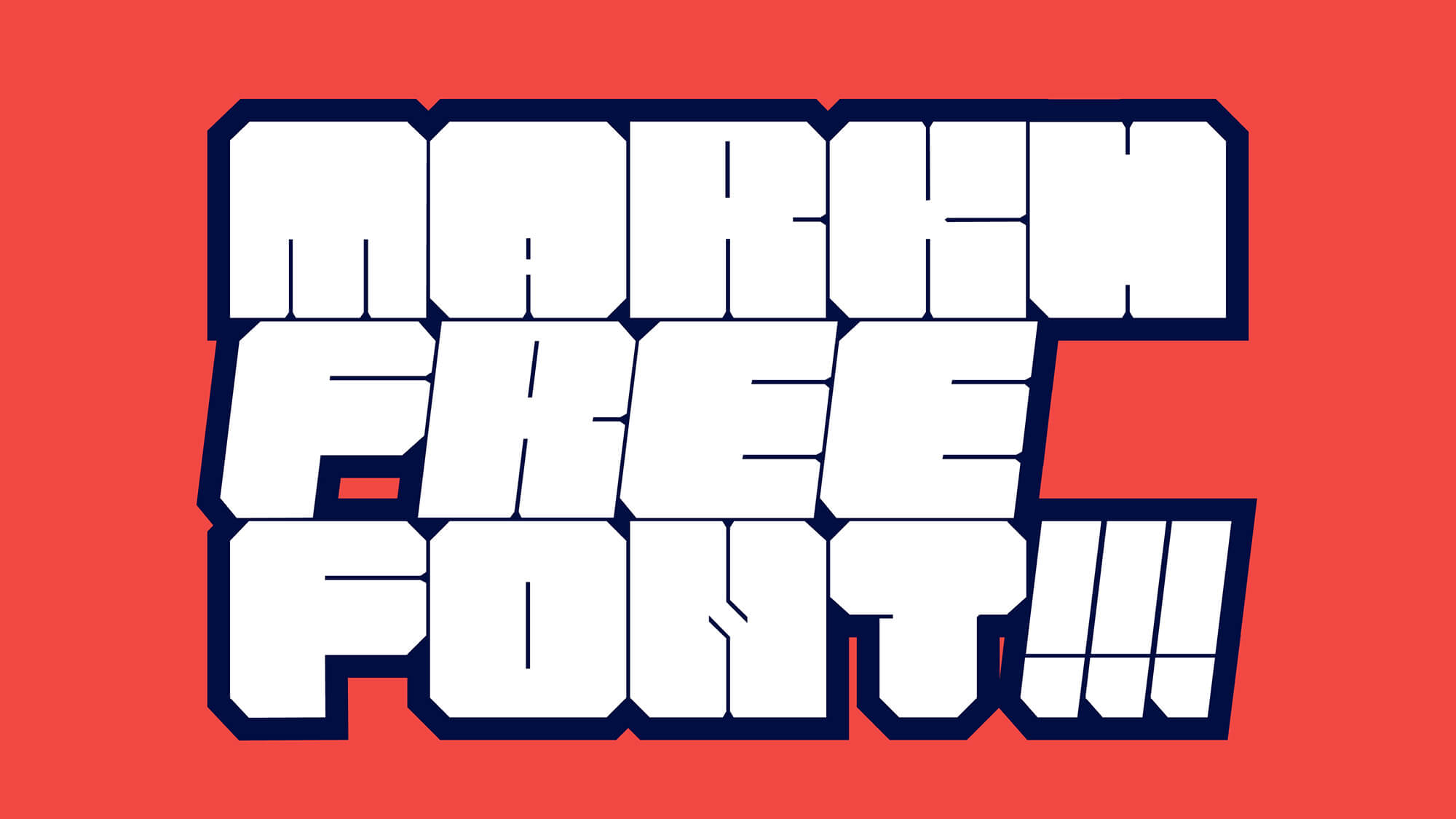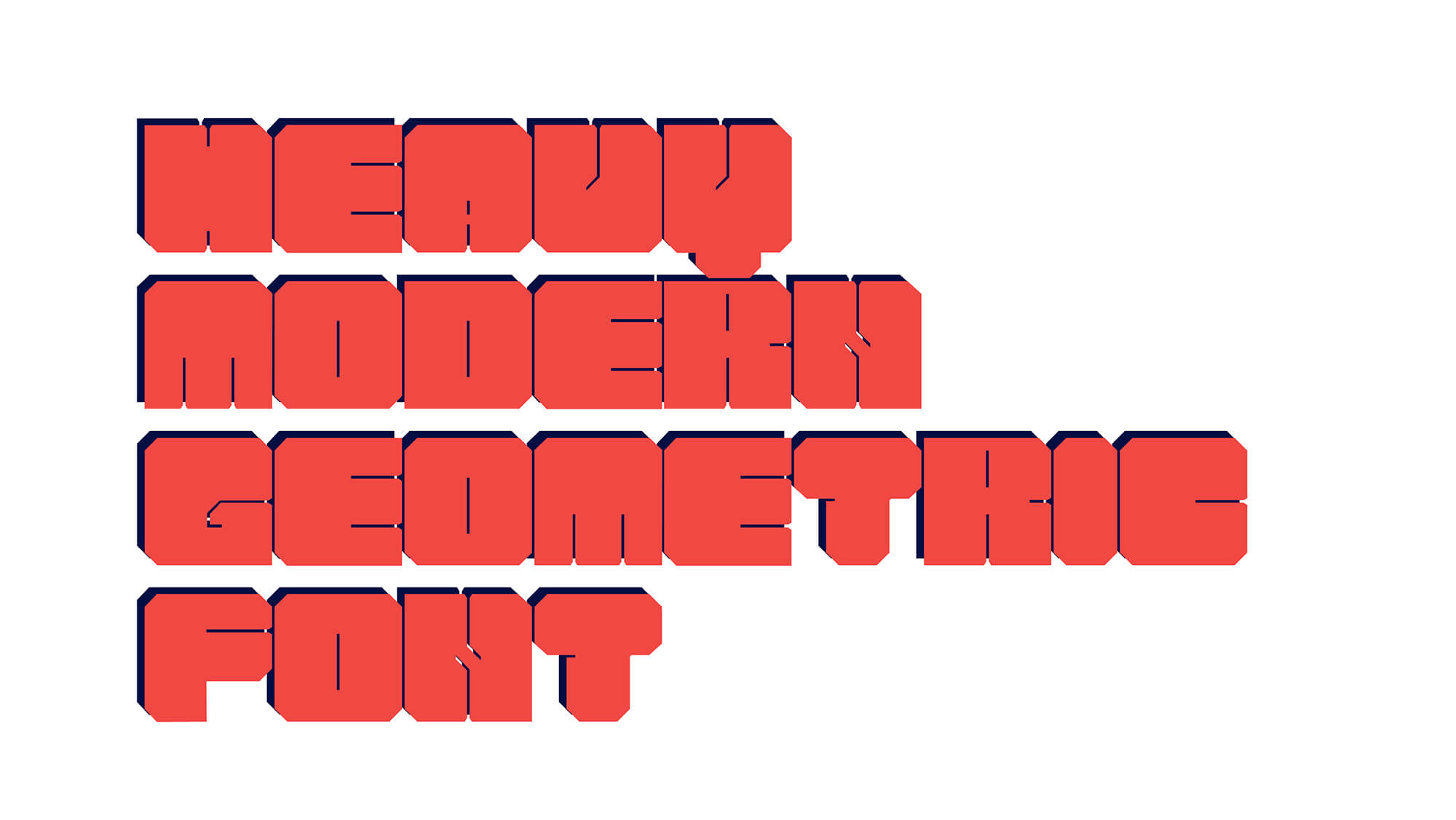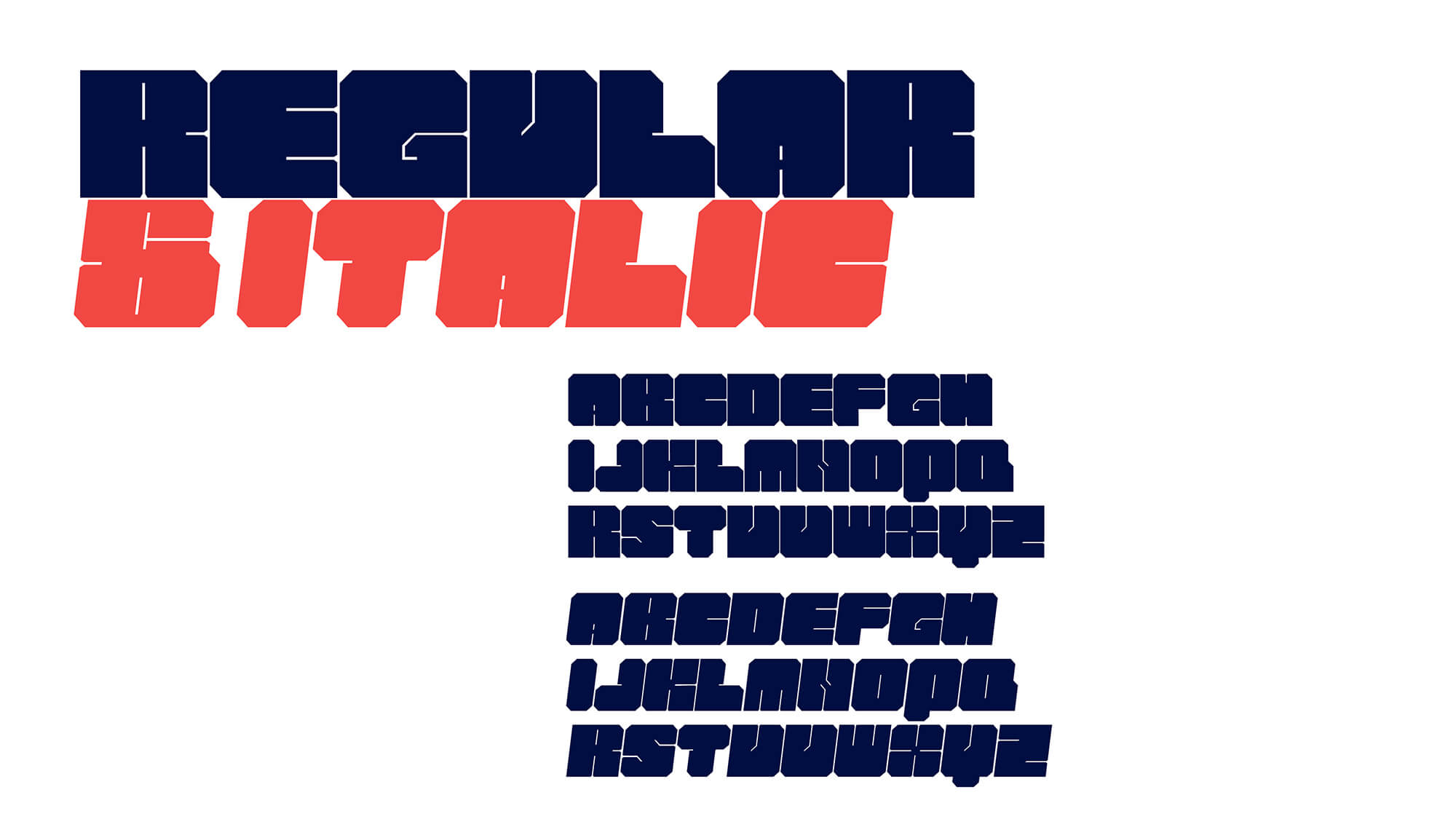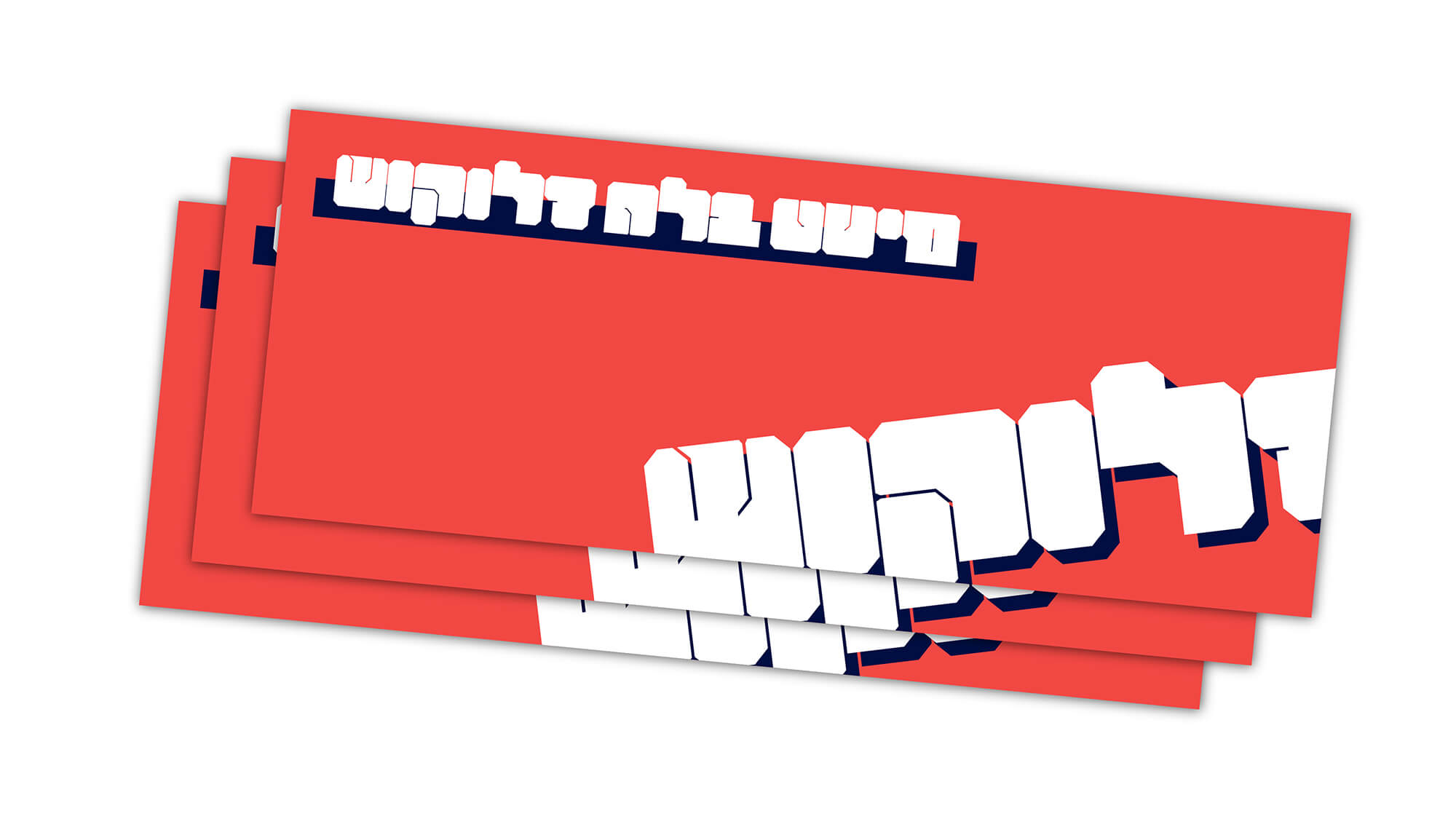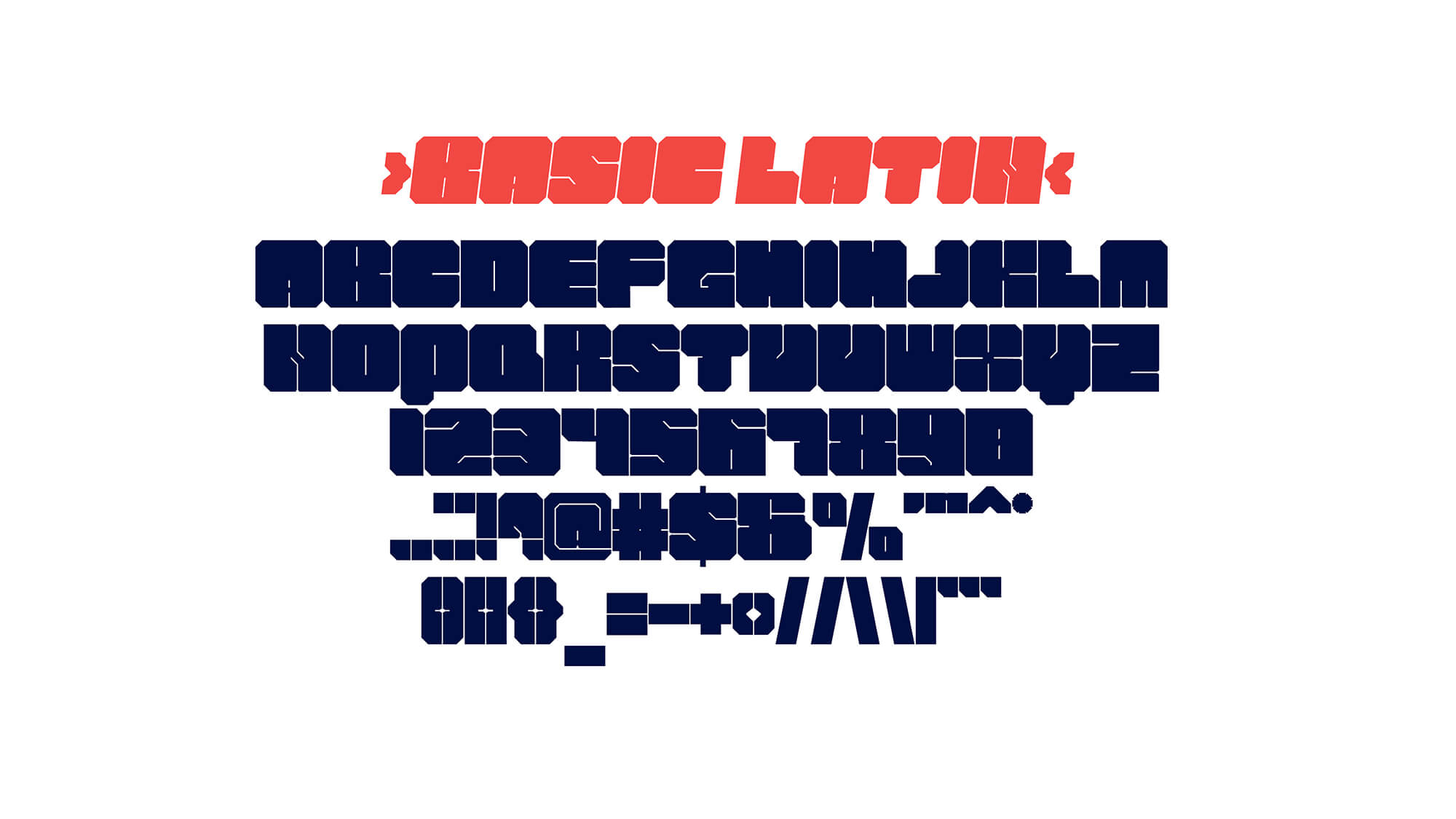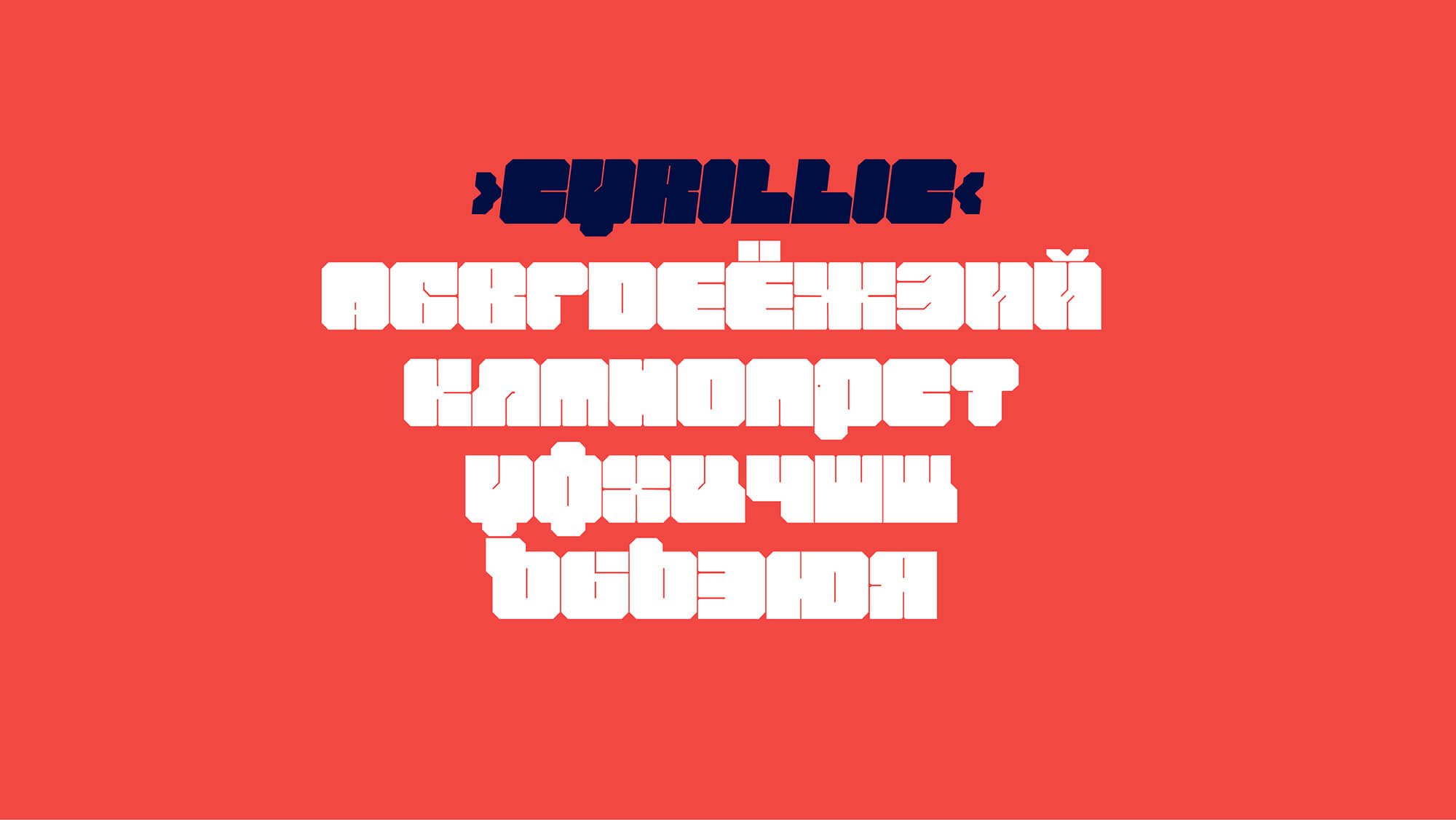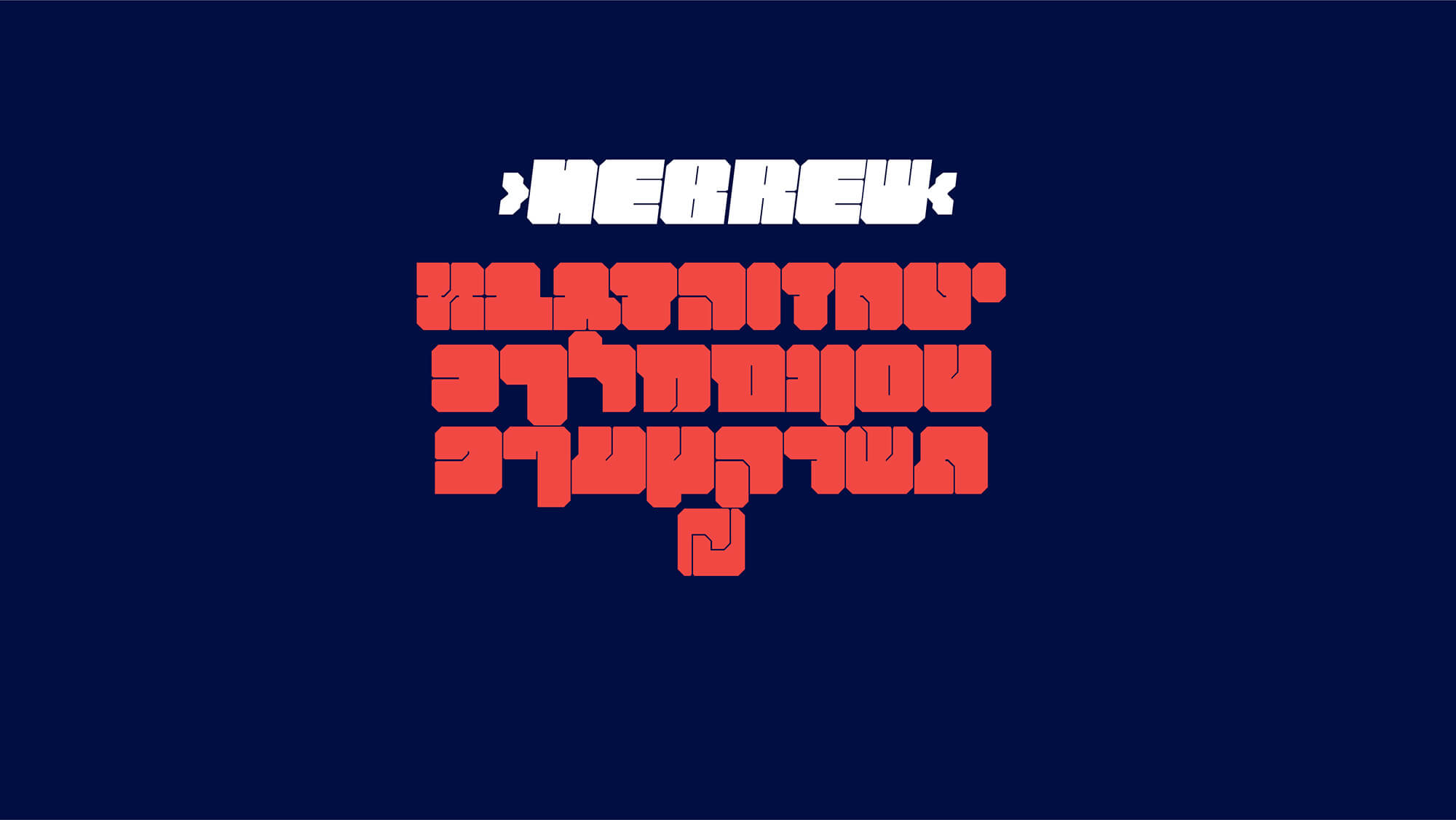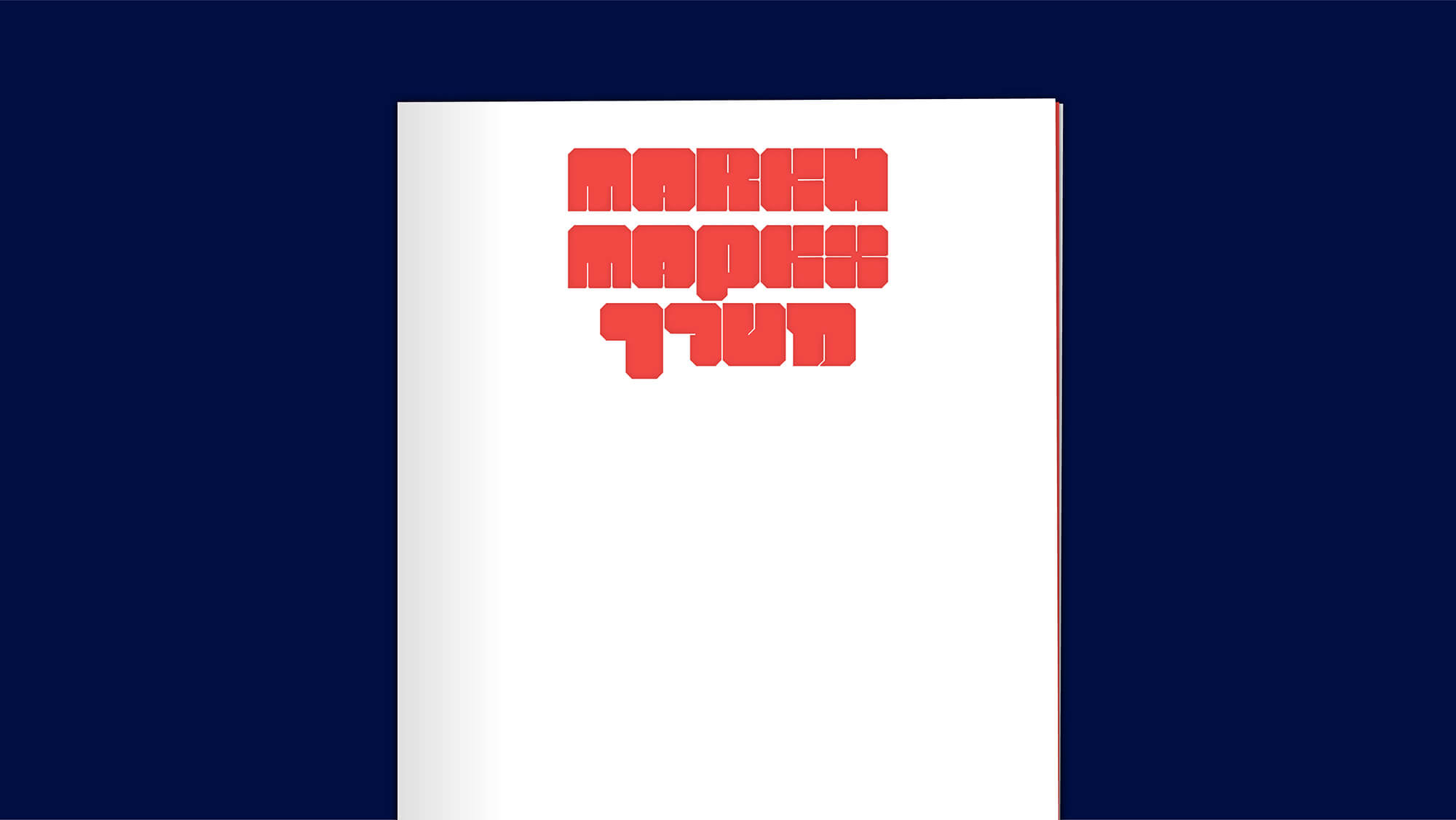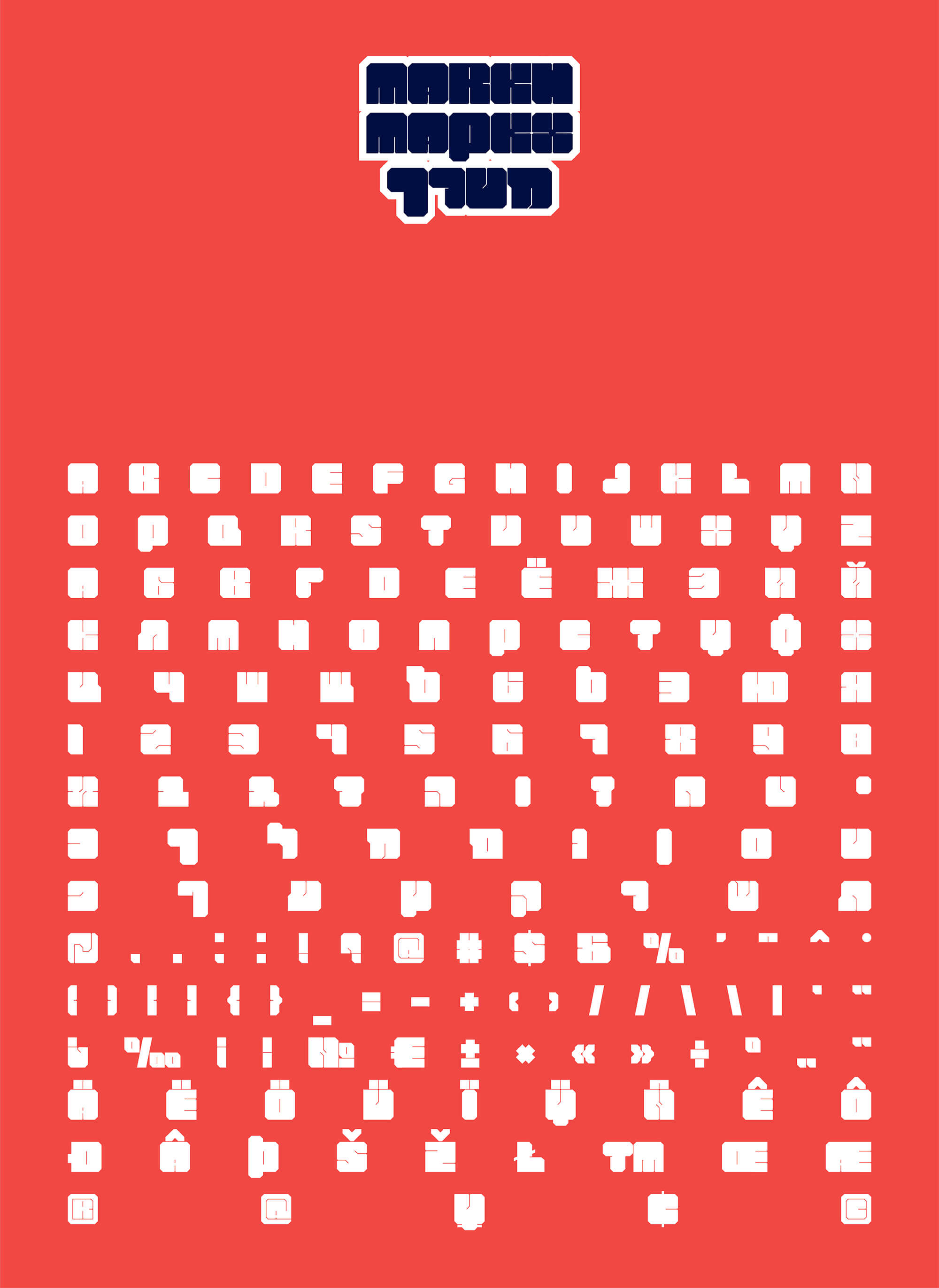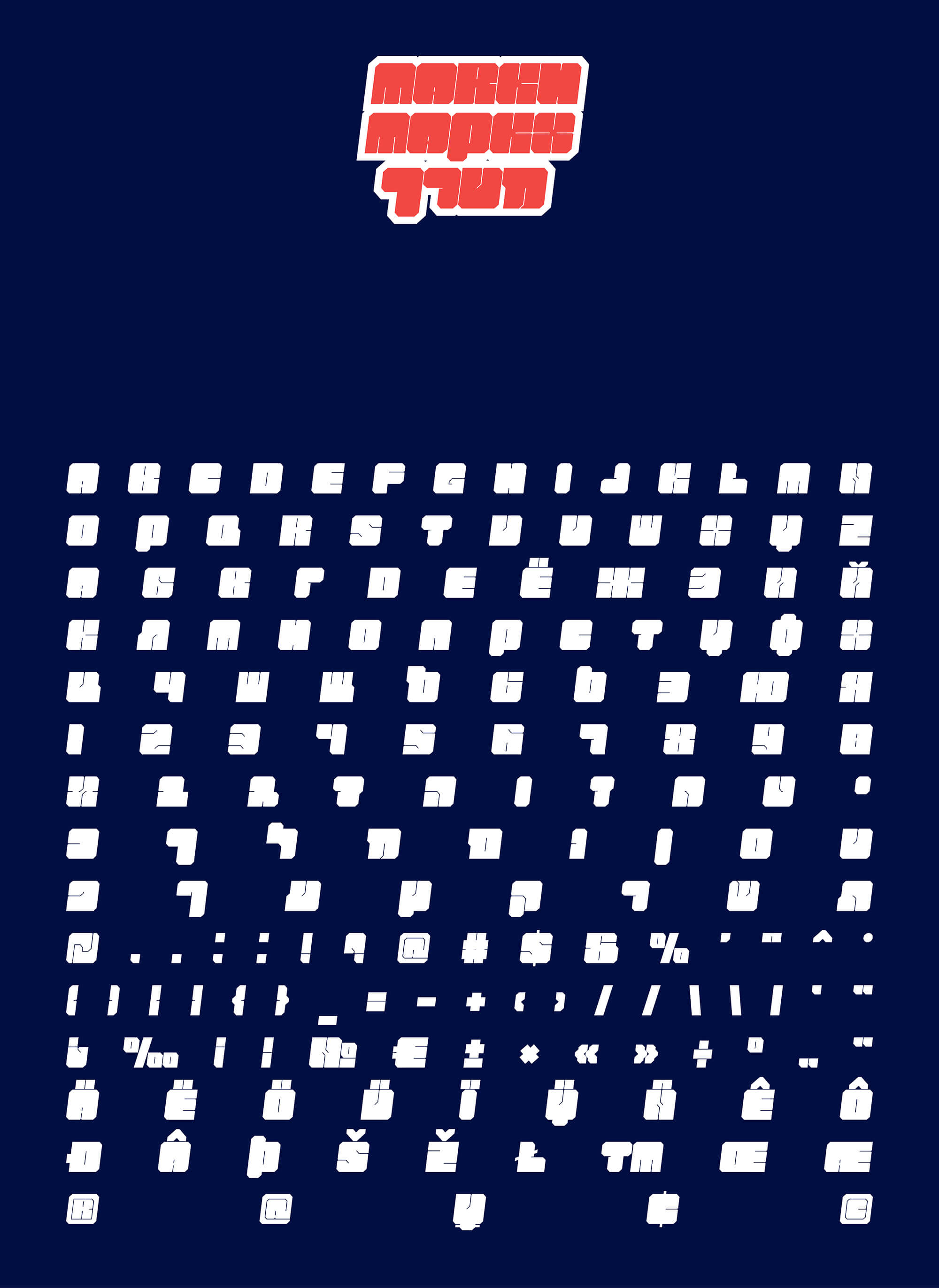
MARKH FREE FONT
Extra Bold
Free Fat Font was created by Tikhon Reztcov, and is exactly what you'd expect. It's Extra Bold and it's free. This font has an extremely heavy weight and many unique characters. Perfect for big titles, advertising, labelling, packaging and anything that needs a big impactful typeface. Free for personal & commercial use